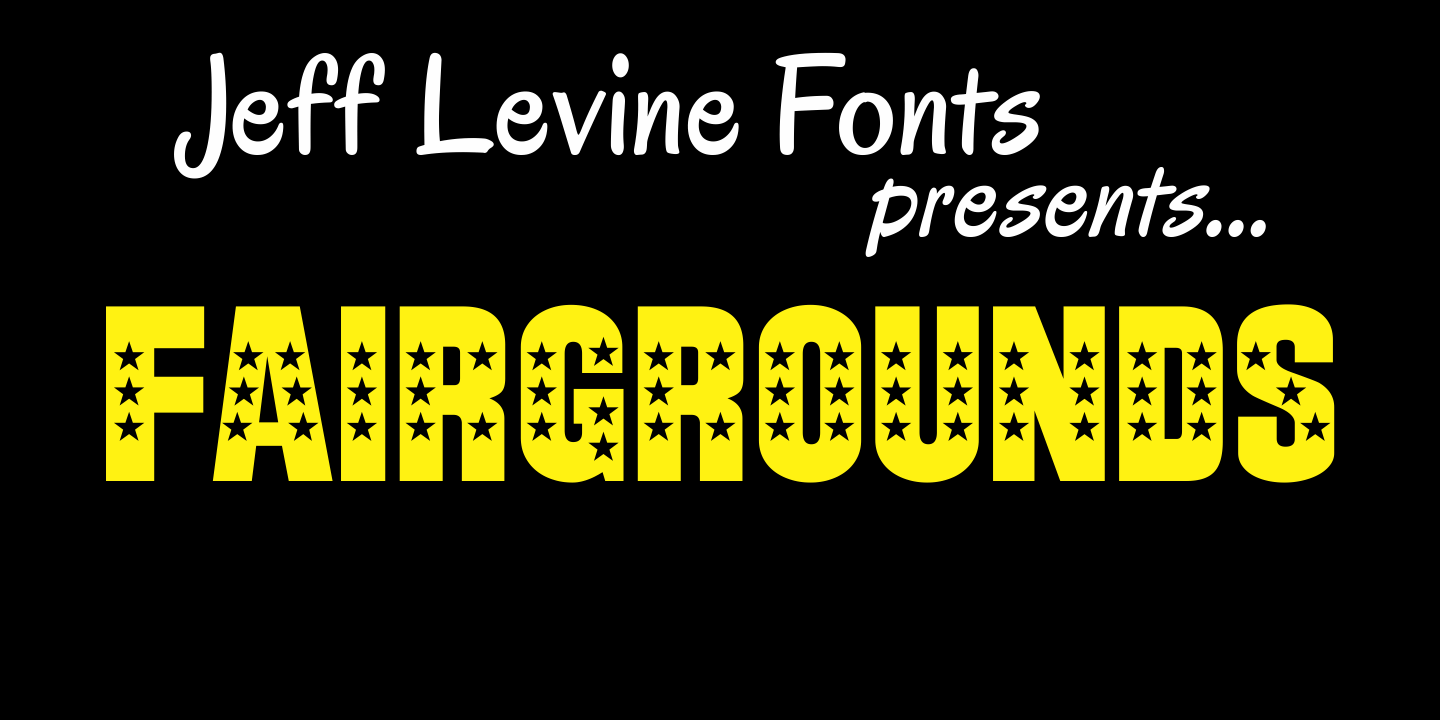
Fairgrounds
Fairgrounds JNL is the direct descendant of Twelve Oaks JNL, complete with a field of stars to draw attention to your layout for political posters, holiday events, charity bazaars, local fairs or any project that needs extra emphasis in its headlines.
Fairgrounds by Jeff Levine Fonts